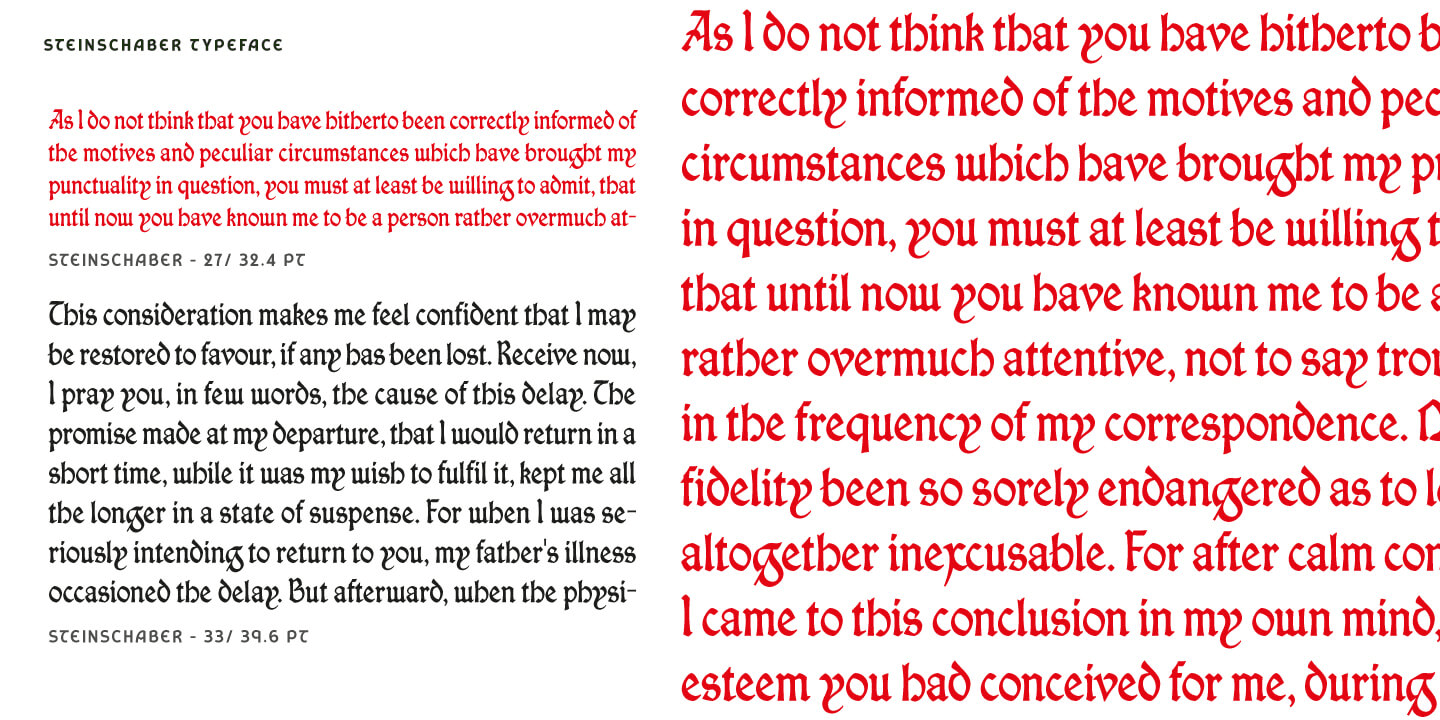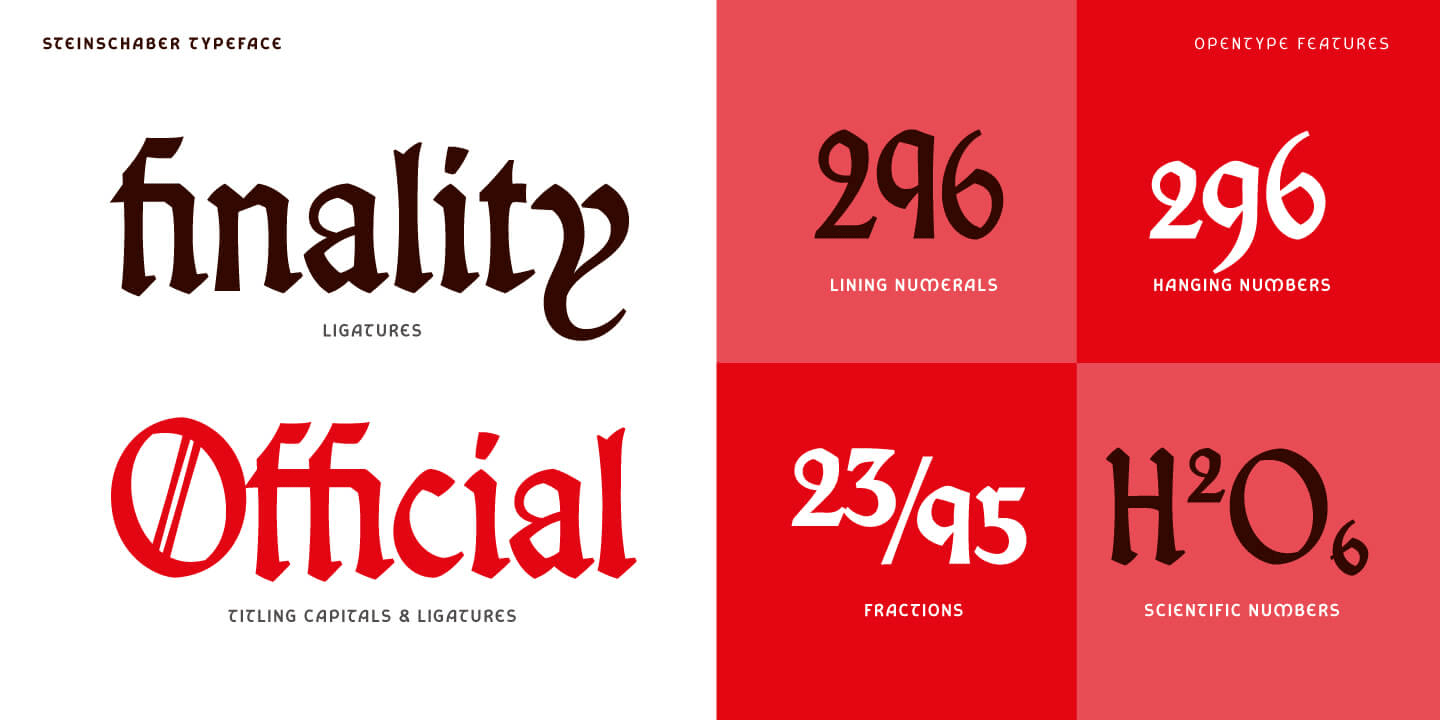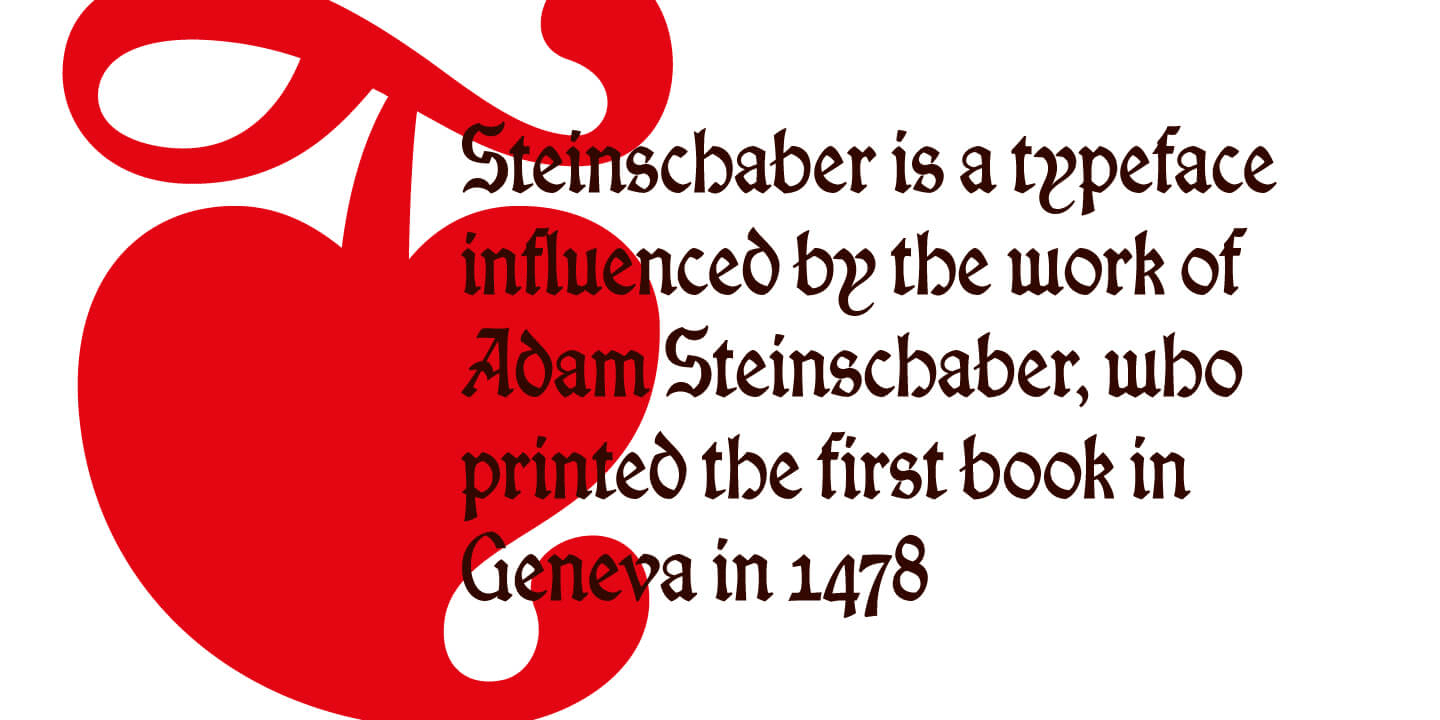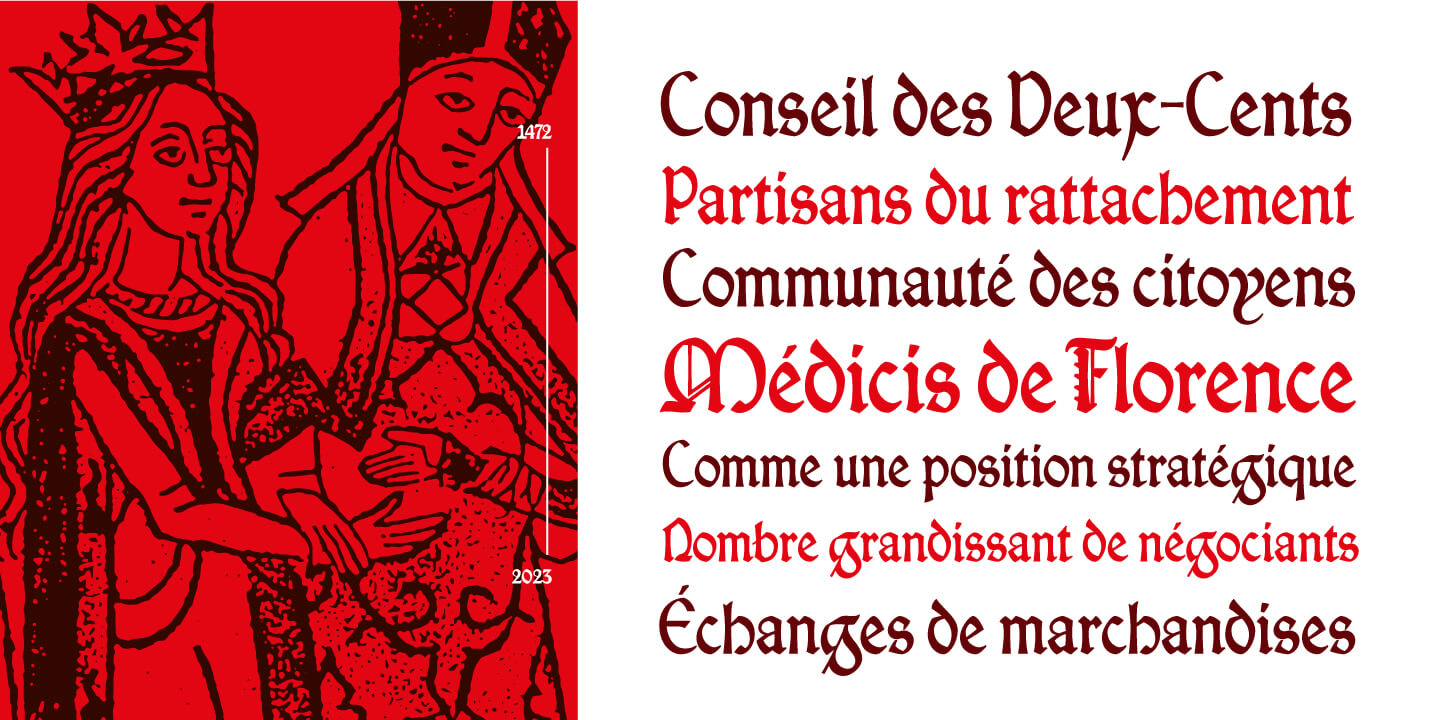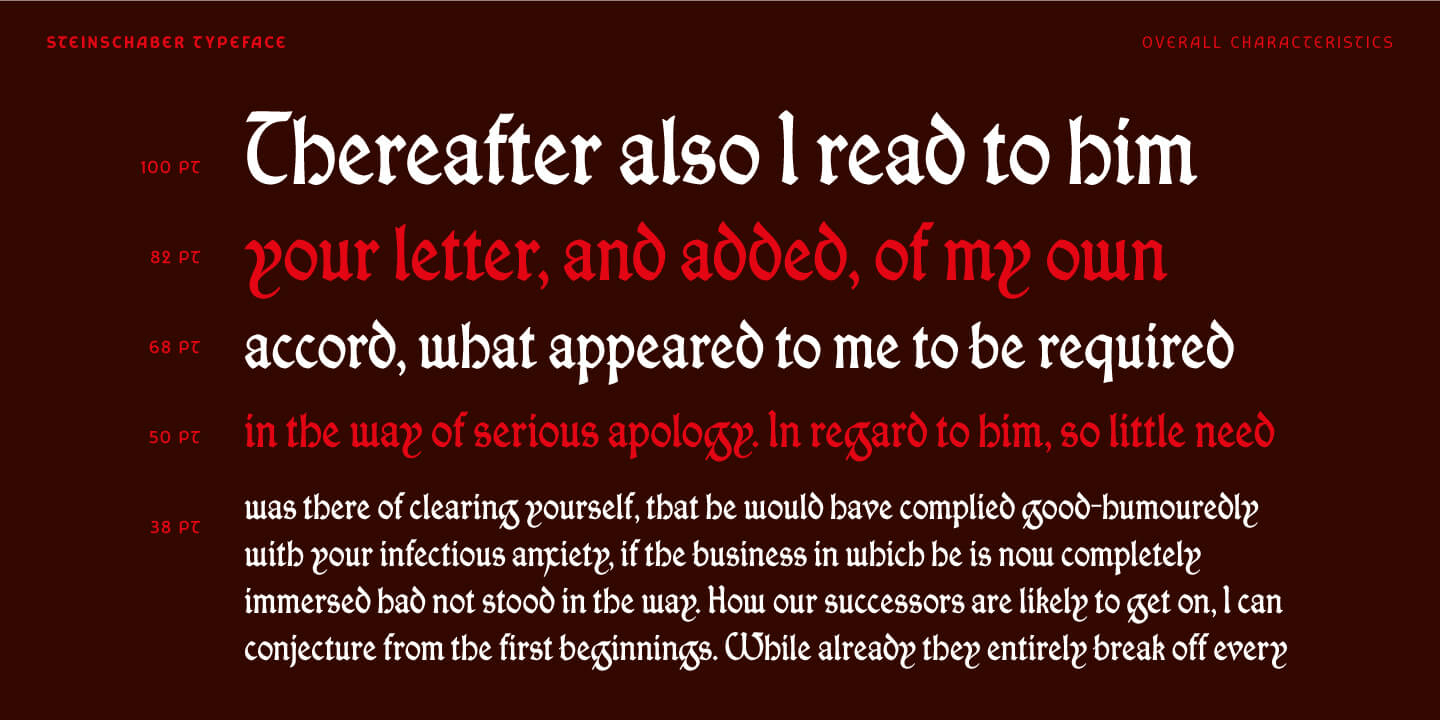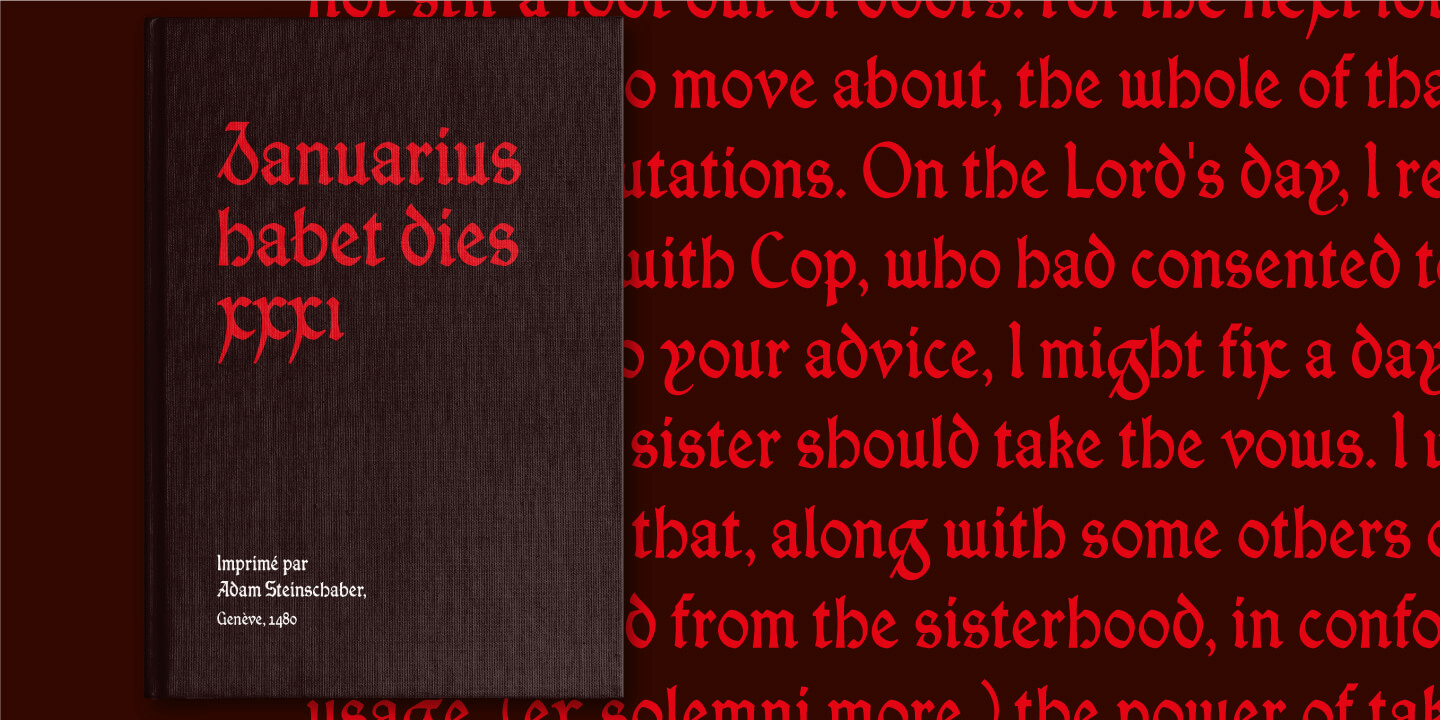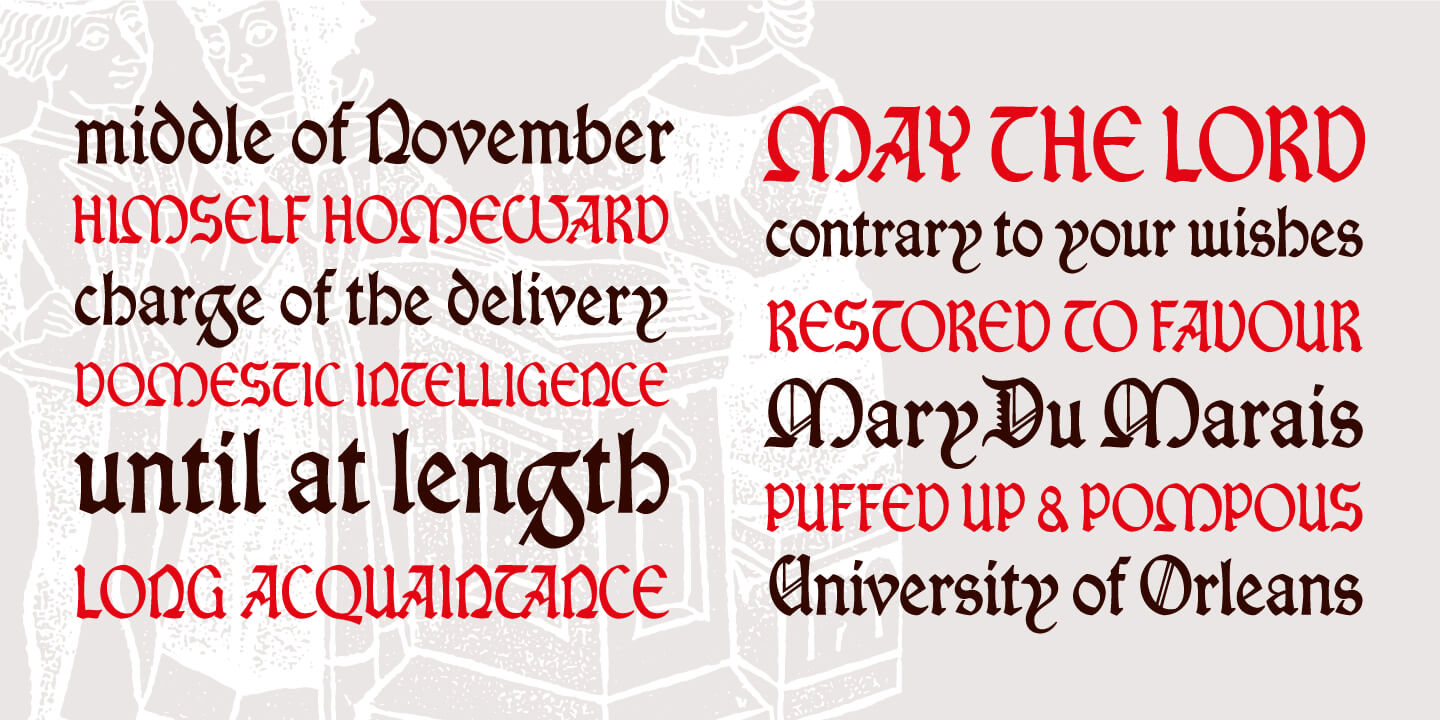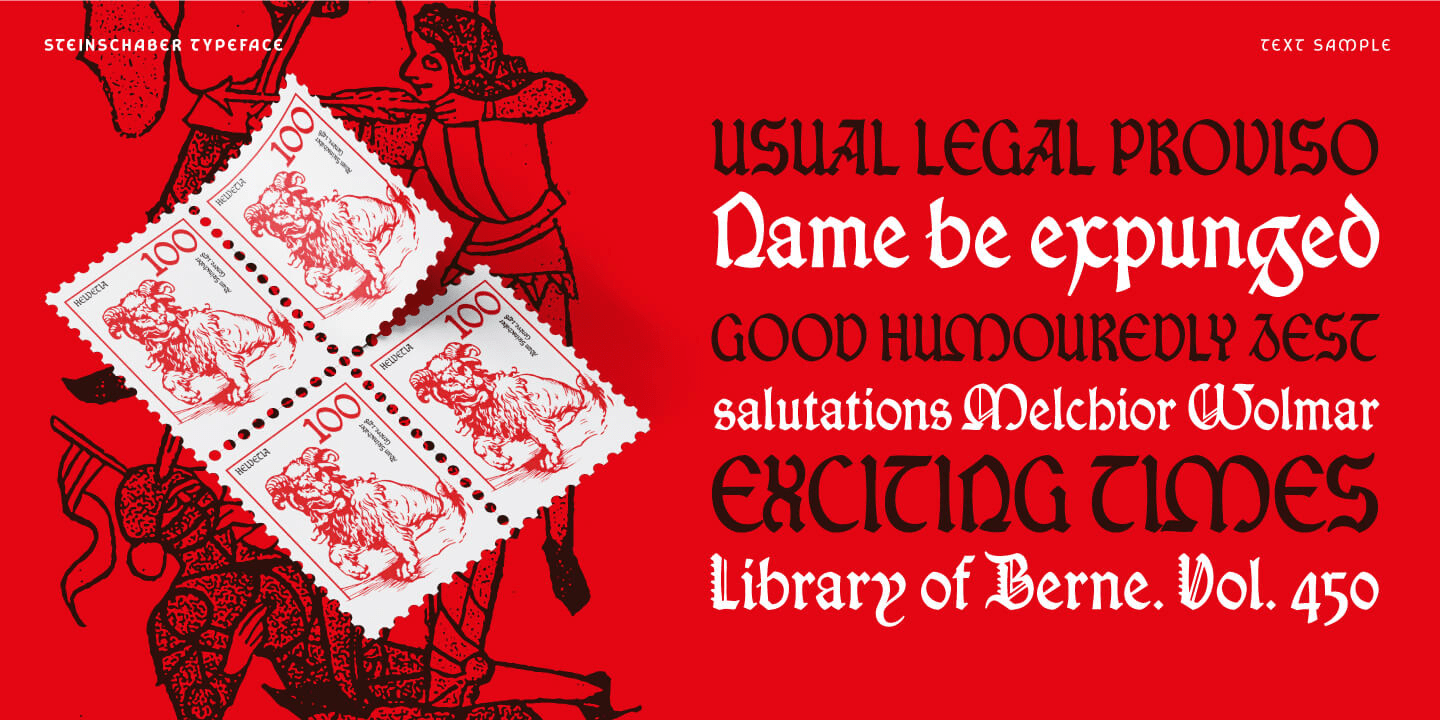
Steinschaber
About Steinschaber
Steinschaber is a single weight, display typeface based on the blackletter Rotunda style used by the first printer of Geneva. Through its quirky letter forms, pronounced contrast and diagonal axis, it offer a unique style that could be used as a historical…